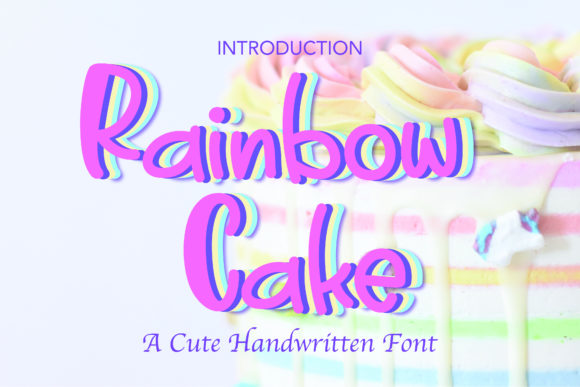
Rainbow Cake Font
Prepare yourself to be mesmerized by Rainbow Cake, a remarkable handwritten font that will paint your designs with a symphony of charm and elegance. Its whimsical strokes, reminiscent of a child's playful scribbles, will evoke a sense of nostalgia and joy in the hearts of all who behold it.
With its remarkable versatility, Rainbow Cake adapts effortlessly to a myriad of design endeavors. From enchanting wedding invitations to vibrant social media posts, this font possesses an uncanny ability to elevate the ordinary into the extraordinary. The limitless possibilities it offers are a testament to its versatility and adaptability.
Beyond its aesthetic appeal, Rainbow Cake carries with it a captivating narrative. Its creator, GoodMoodType, has poured their heart and soul into crafting this font, ensuring that each letterform exudes a touch of warmth and personality. It is this human touch that truly sets Rainbow Cake apart from the multitude of fonts available today.
So, whether you seek to add a touch of whimsy to your personal correspondence or desire to make a bold statement in your professional endeavors, Rainbow Cake stands ready to be your faithful companion. Let its enchanting strokes dance across your designs, leaving an indelible mark on the hearts and minds of all who encounter them.